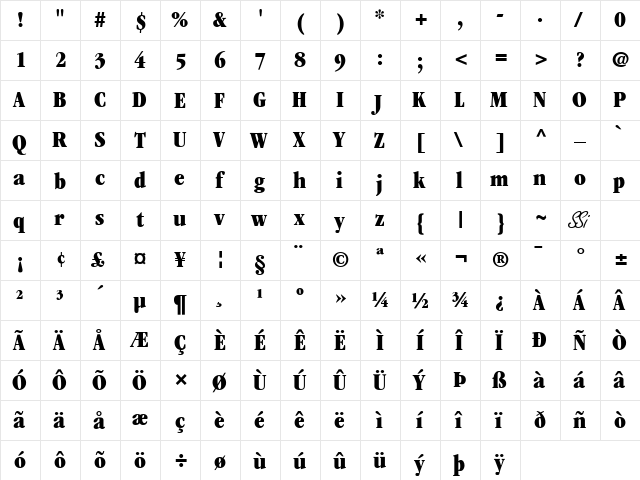
Garamond Ex-BlackCondensed SSi Extra Black Condensed
Design Context for Garamond Ex-BlackCondensed SSi Typeface
Garamond Ex-BlackCondensed SSi takes a measured approach to typography — its balanced proportions and neutral character make it a reliable workhorse for both digital and print work. The condensed width makes it efficient for tight spaces without sacrificing legibility.